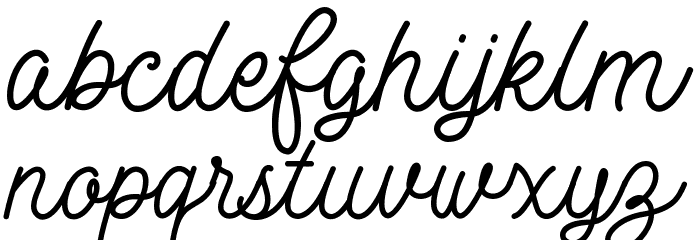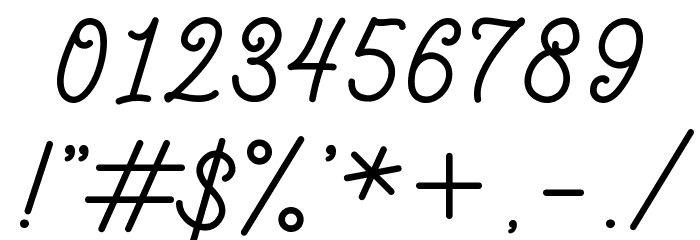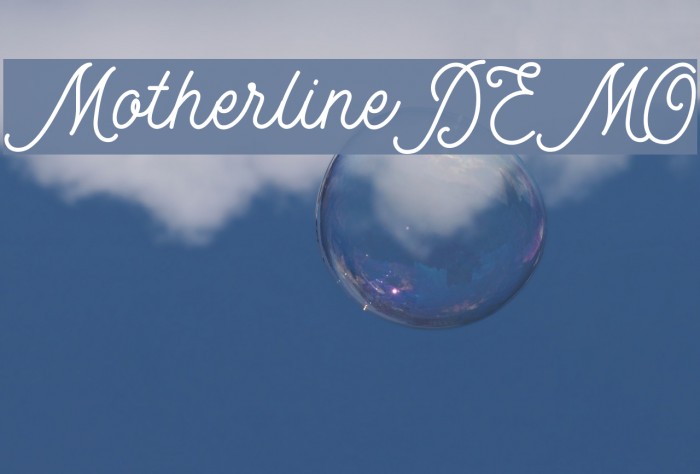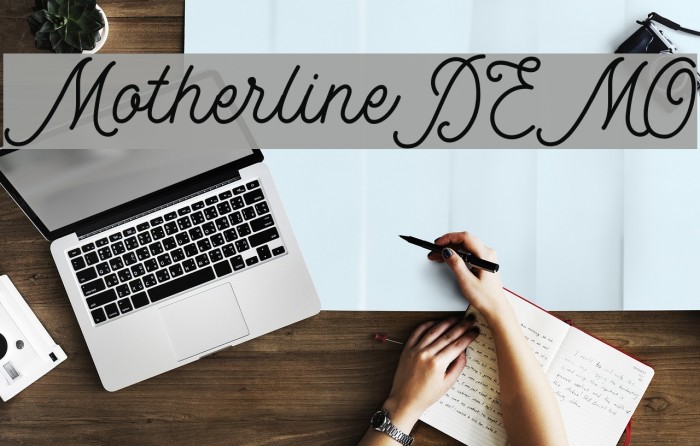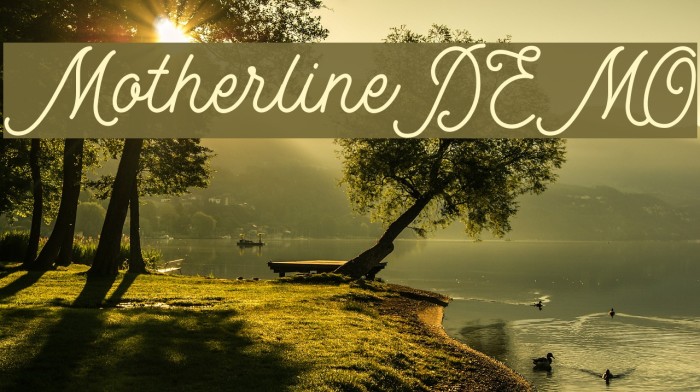
MotherlineDEMO Font
This elegant script font features a flowing, cursive style with smooth, connected strokes that give it a handwritten appearance. The uppercase letters are slightly more ornate, with subtle flourishes that add a touch of sophistication. The lowercase letters maintain a consistent flow, making them easy to read while retaining their stylish flair. Numbers and special characters are designed to match the overall aesthetic, ensuring a cohesive look across all text elements. The font's smooth curves and balanced proportions make it suitable for a variety of design applications.
A flowing, cursive script font with elegant, connected strokes.
- Proposed Projects: Ideal for wedding invitations, greeting cards, personal branding, and elegant packaging designs.
- Overall Style: Elegant
- Use Case: Logos, Invitations, Personal Branding